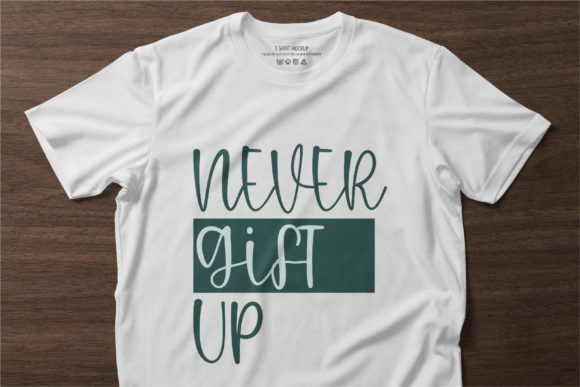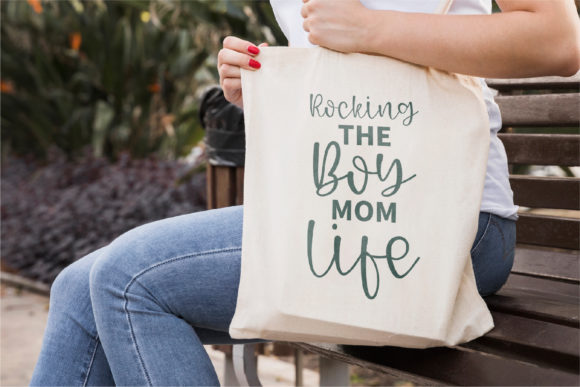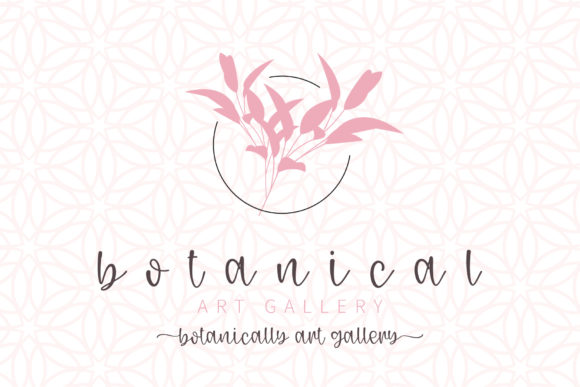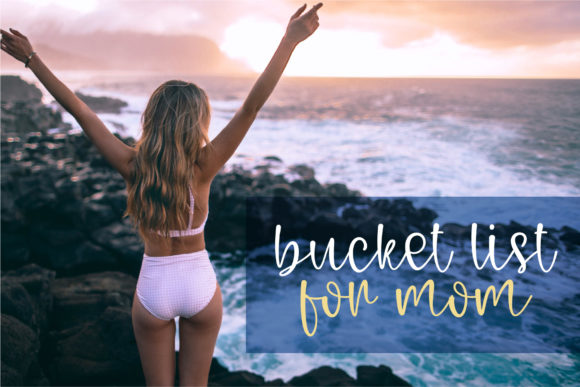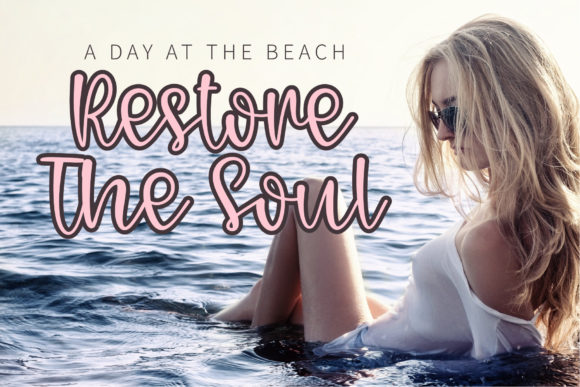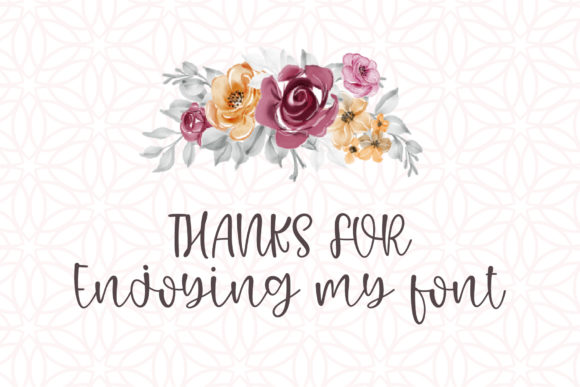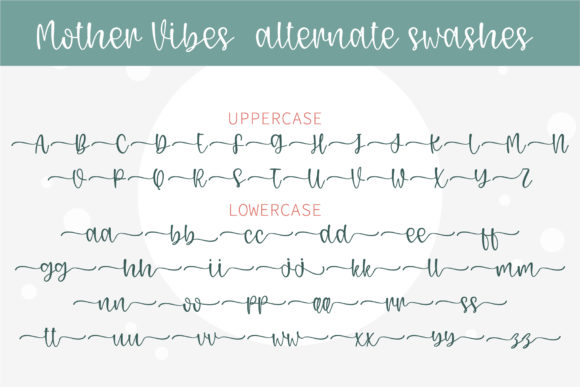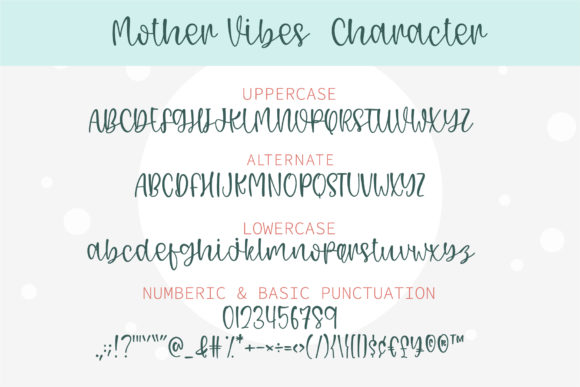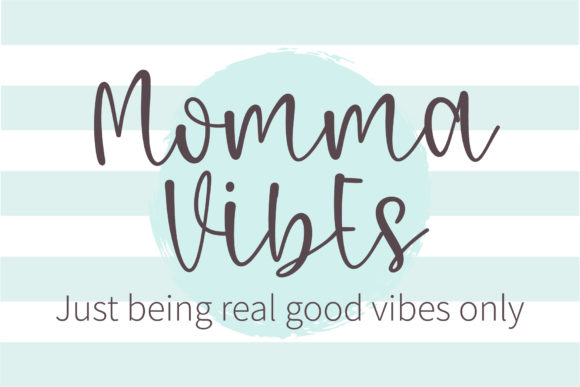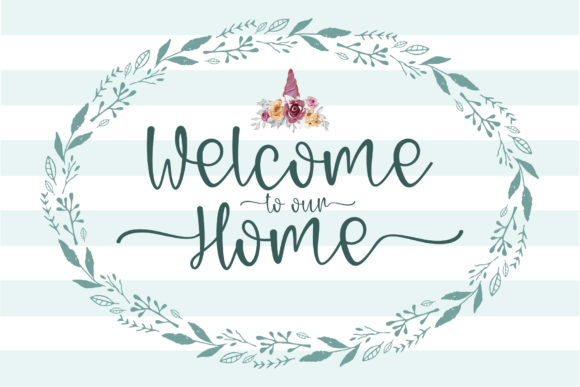
Mother Vibes Font
About Mother Vibes Font
Mother Vibes is a beautiful and friendly handwritten font with a romantic theme. Use it for any design projects that require a charming appearance!